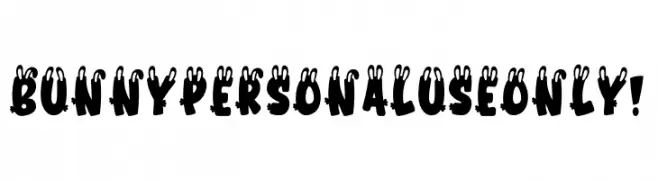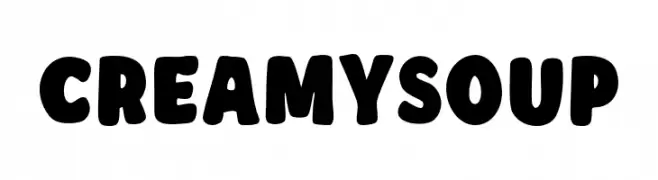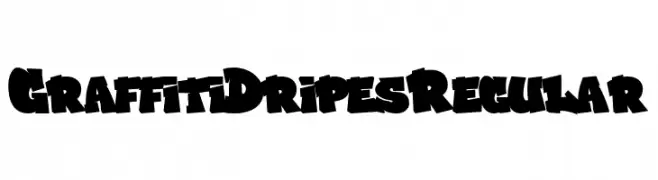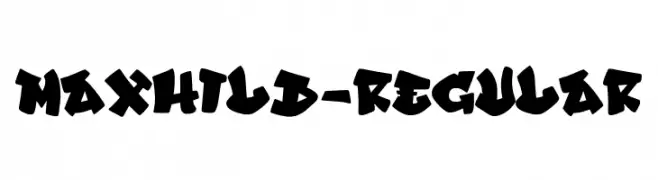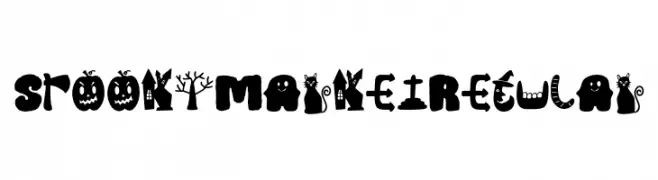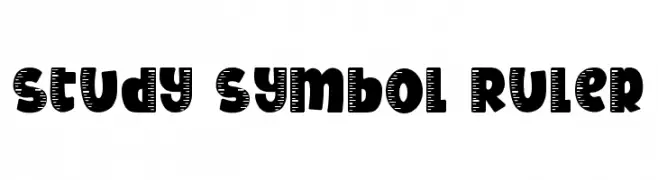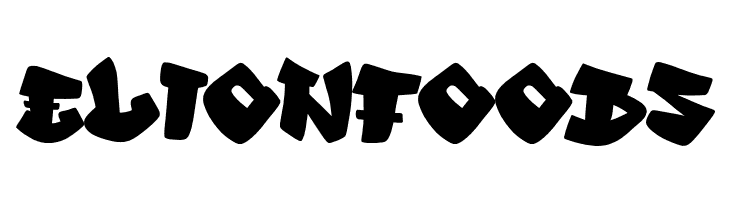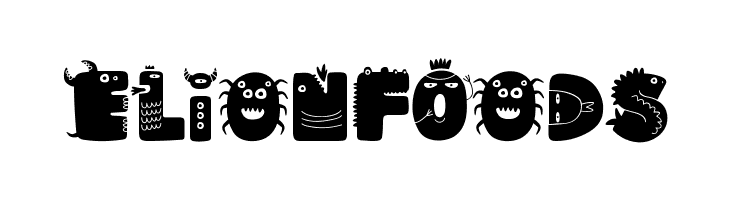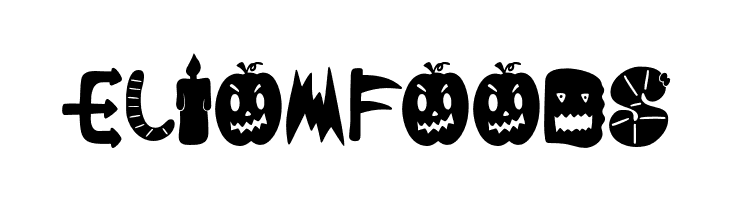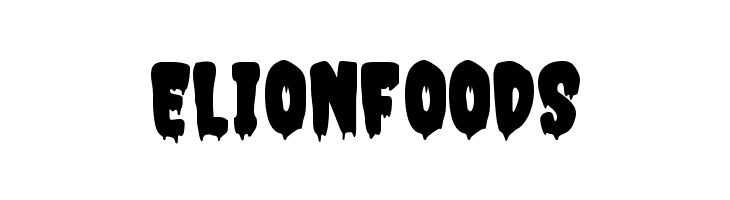
( Fonts by Nirmana Visual )
A bold, graffiti-inspired font with a playful, dripping effect.
( Fonts by Ahwe Project )
A bold, cartoonish font with thick, dynamic characters.
( Fonts by Fitrah Type )
A bold, 3D graffiti-style font with strong extruded effects and high contrast.
( Fonts by Misti's Fonts )
A playful, bold font with rounded edges and a friendly appearance.
( Fonts by Kong Font )
A bold, playful font with bunny ears on each letter, perfect for whimsical designs.
( Fonts by Tokokoo Studio )
A playful, monster-themed font with bold, animated characters.
( Fonts by Ahwe Project )
A playful, spooky display font with Halloween-themed characters.
( Fonts by Font Bundles )
A bold, spooky font with a dripping effect, ideal for Halloween themes.
( Fonts by PutraCetol Studio )
A playful, decorative font with a ruler-like pattern and hand-drawn aesthetic.
( Fonts by MJType )
A bold, rounded font with a playful and friendly style.